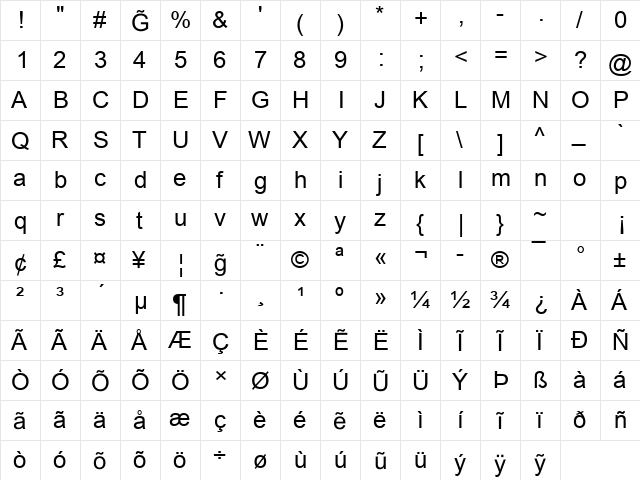
Guarani_Arial Regular
Design Context for Guarani_Arial Typeface
Guarani_Arial offers clean, dependable letterforms without strong stylistic allegiance, making it a practical choice for designers who need flexibility.